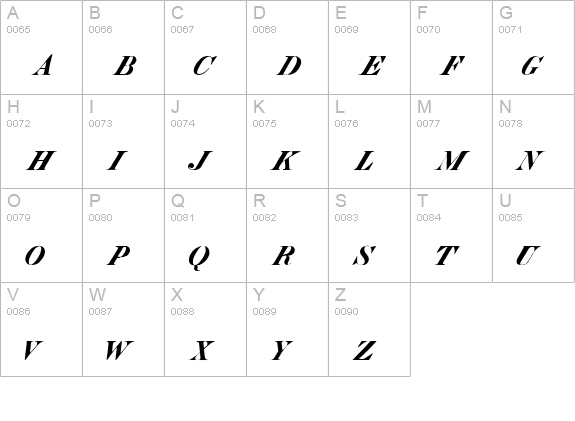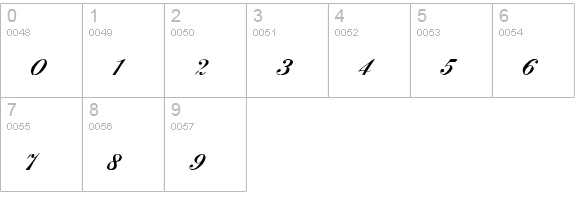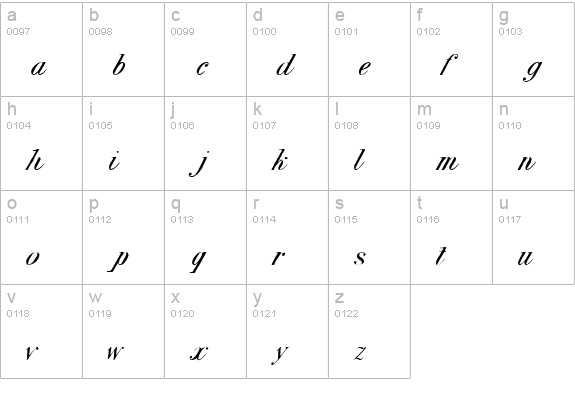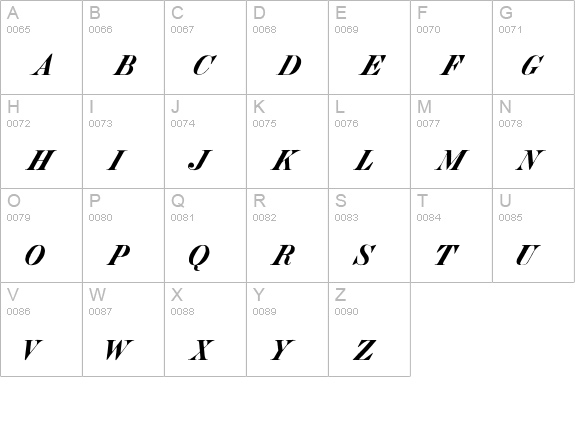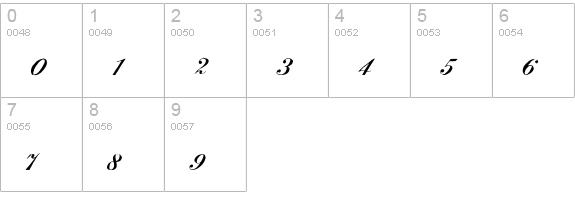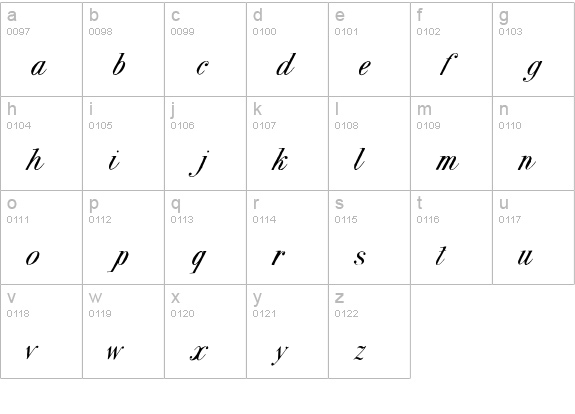
Italic HPLHS is a distinctive, italic variant in the Italic typeface family \xE2\x80\x94 well suited to design and typography projects.
The Italic HPLHS font is a stunning typeface that exudes elegance and sophistication. With its beautifully crafted italicized letterforms, this font is perfect for adding a touch of class to any design project. Whether you're creating elegant wedding invitations, designing a high-end logo, or crafting a professional presentation, the Italic HPLHS font is sure to impress. What sets this font apart is not only its aesthetically pleasing design but also its versatility. It can be used for both headings and body text, making it a versatile choice for a wide range of design applications. The Italic HPLHS font is also highly legible, ensuring that your message is conveyed with clarity and style. One of the best things about the Italic HPLHS font is that it is freely available to download at FontsMarket.com. This means that you can enhance your designs with this fantastic font without any cost. Whether you're a professional designer or a hobbyist, having access to high-quality fonts like the Italic HPLHS font can make a world of difference in your creative projects. So why wait? Head over to FontsMarket.com today and download the Italic HPLHS font for free. Elevate your designs with this exquisite typeface and bring a touch of elegance to your work.